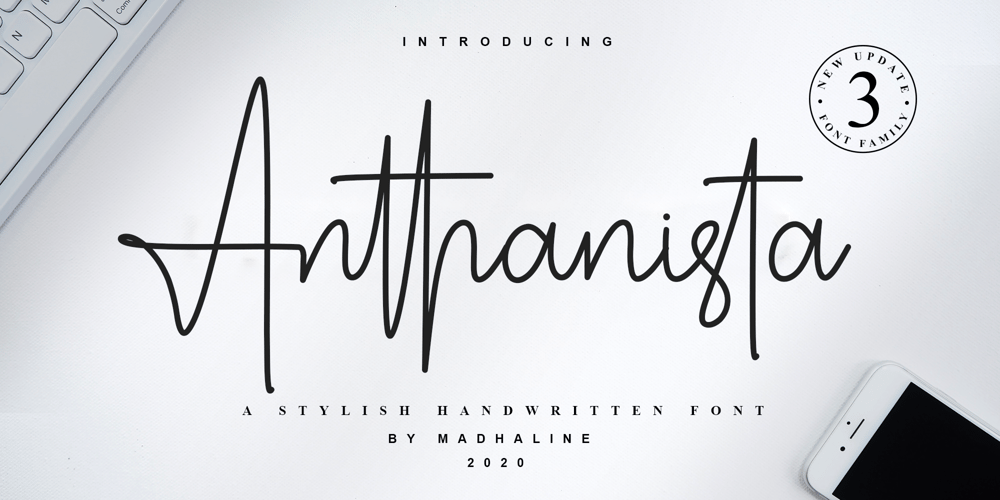
Anthanista Font Family was designed by Achmad Hanif Ulinuha and published by Madhaline Studio. Anthanista contains 3 styles and family package options. Anthanista would perfect for photography, watermark, social media posts, advertisements, logos & branding, invitation, product designs, label, stationery, wedding designs, product packaging, special events or anything that need handwriting taste.What’s Included : Ton of glyphs (include Uppercase, Lowercase, Numerals & Punctuations, 113 Ligatures) Works on PC & Mac Simple installations Accessible in the Adobe Illustrator, Adobe Photoshop, Adobe InDesign, even works on Microsoft Word